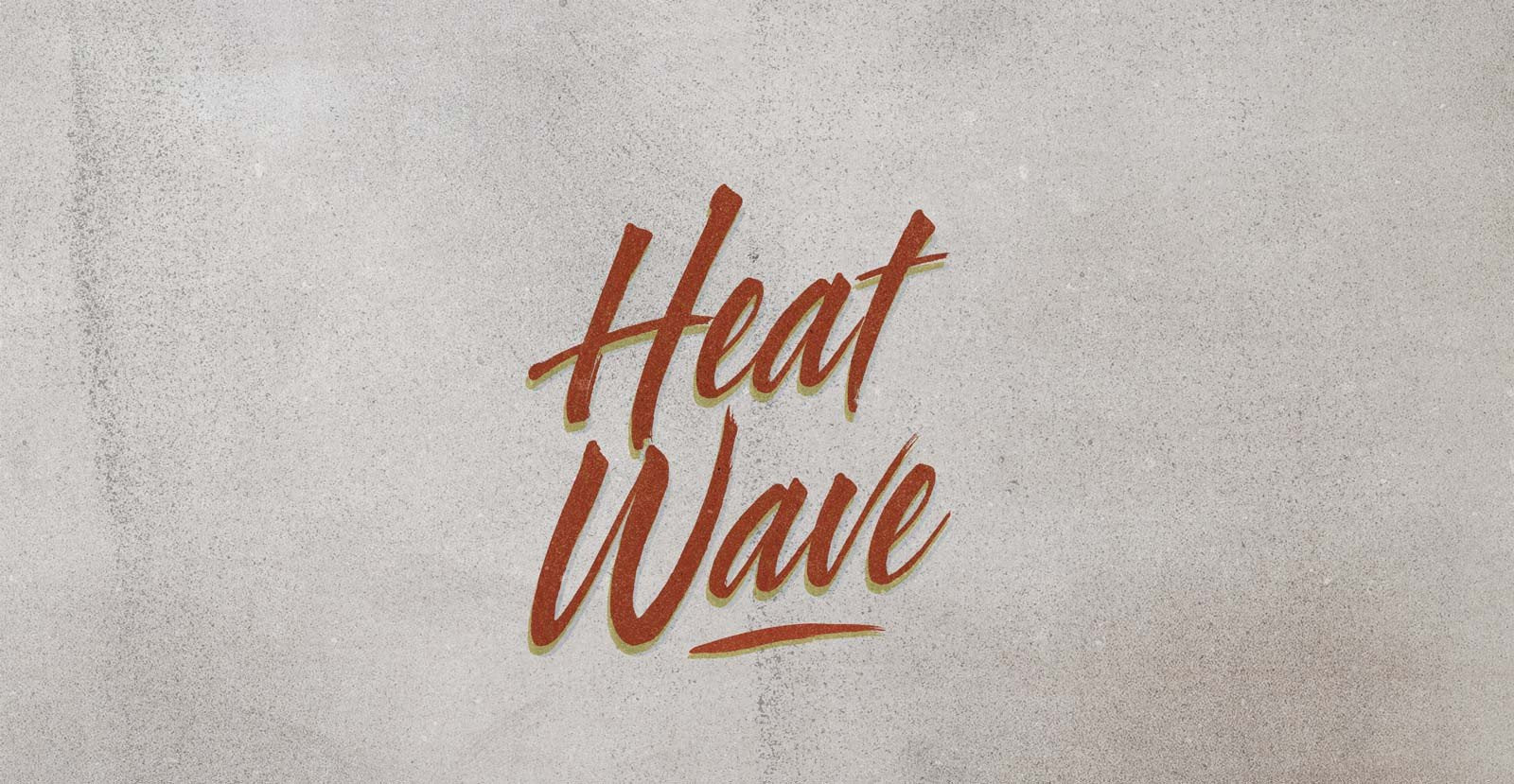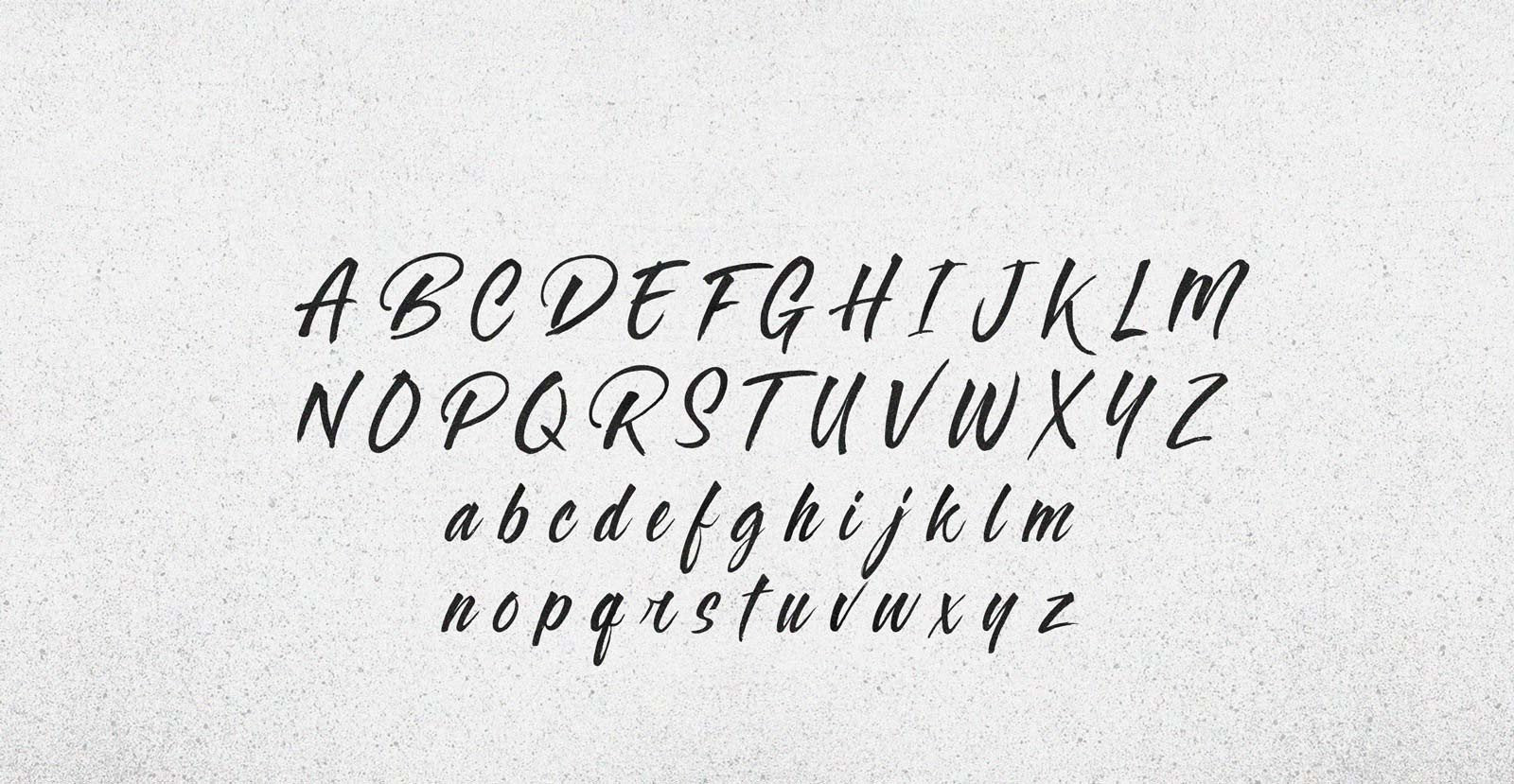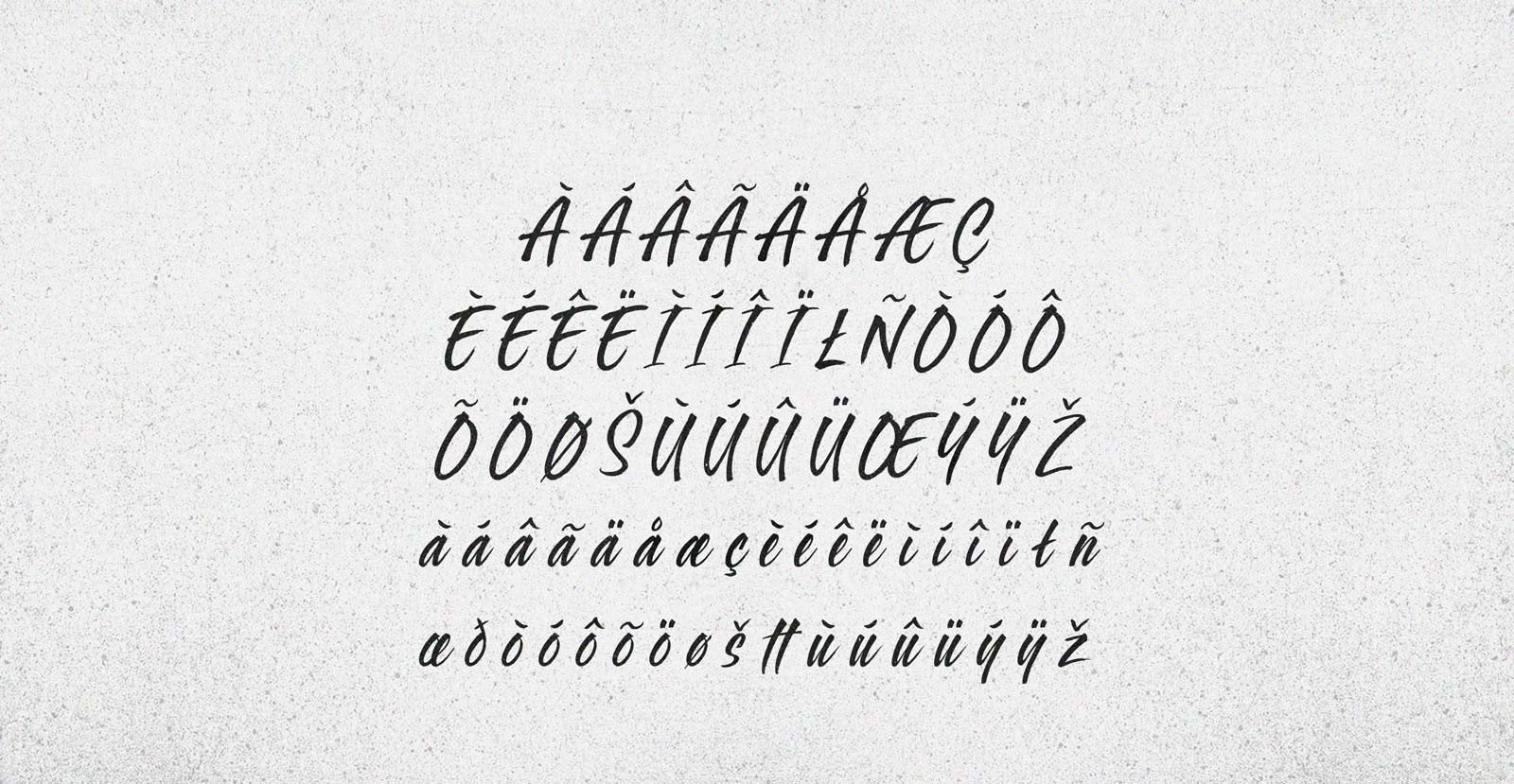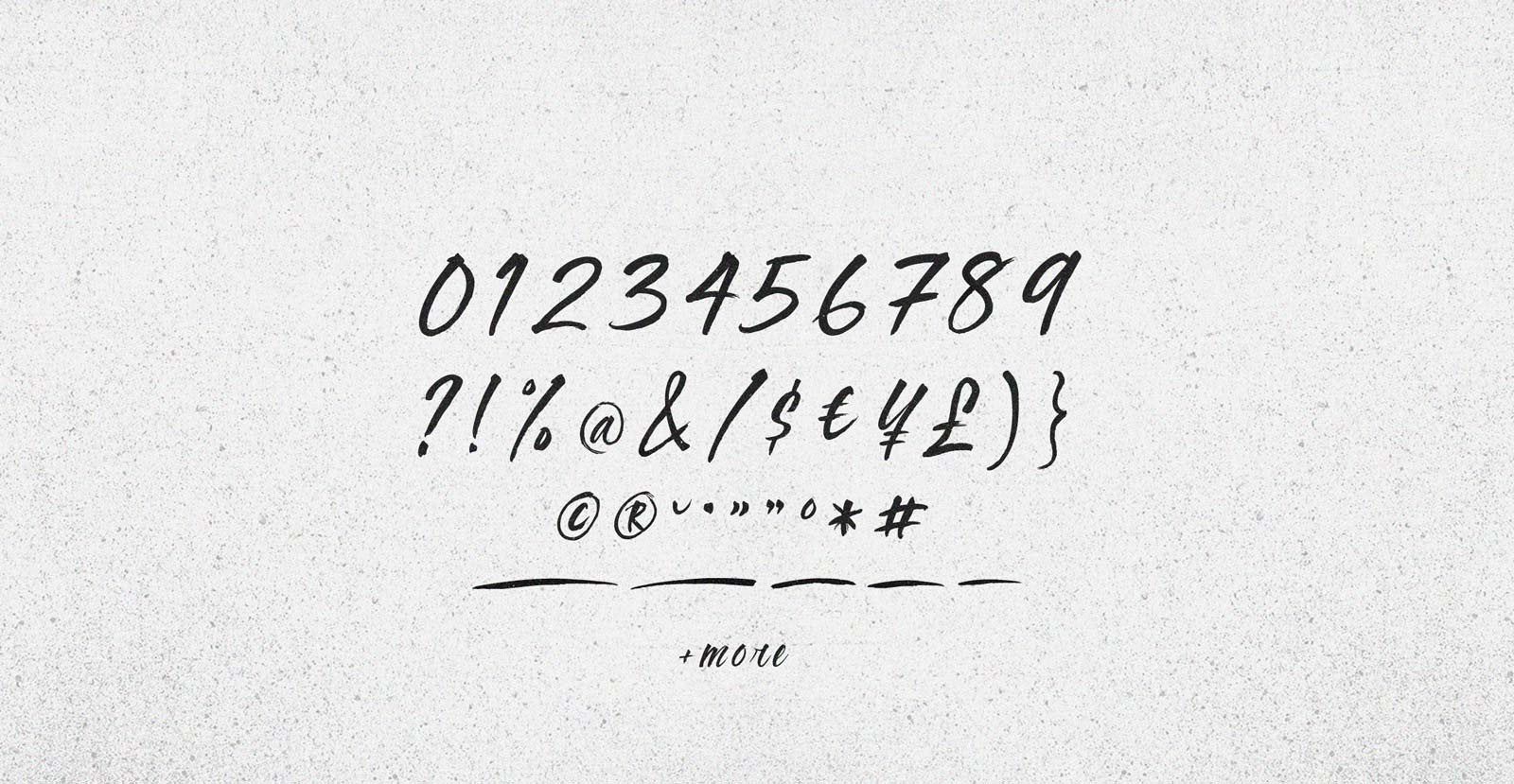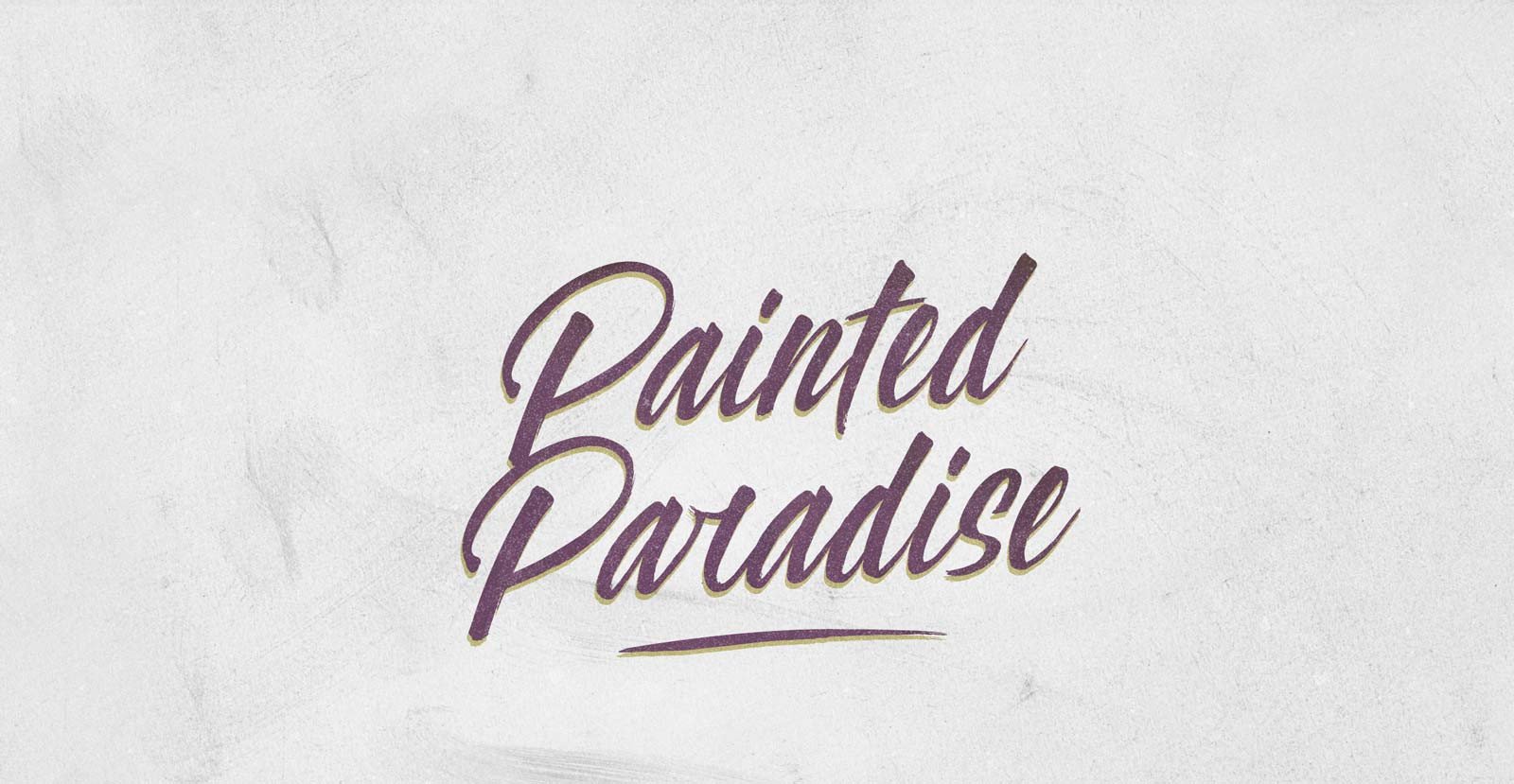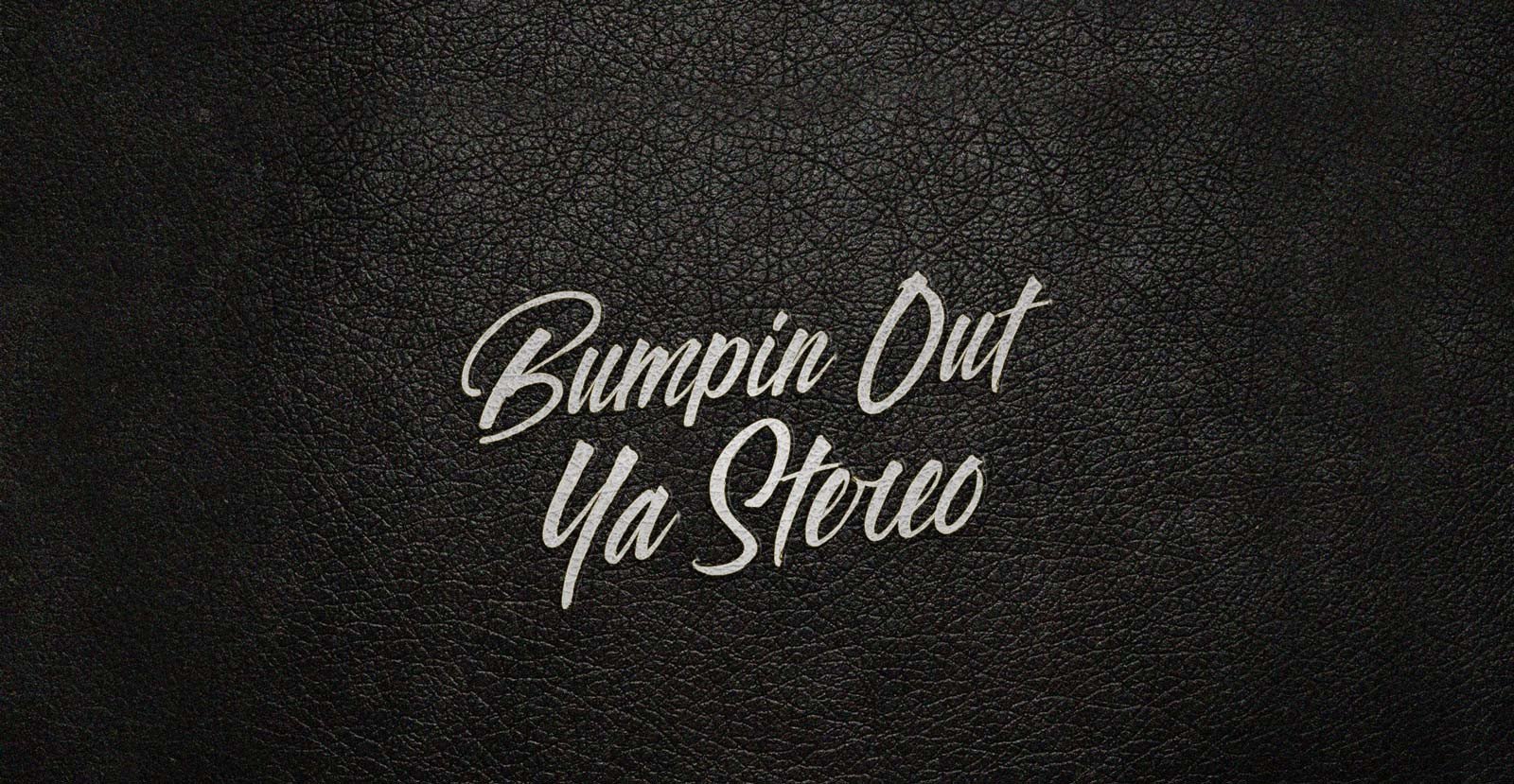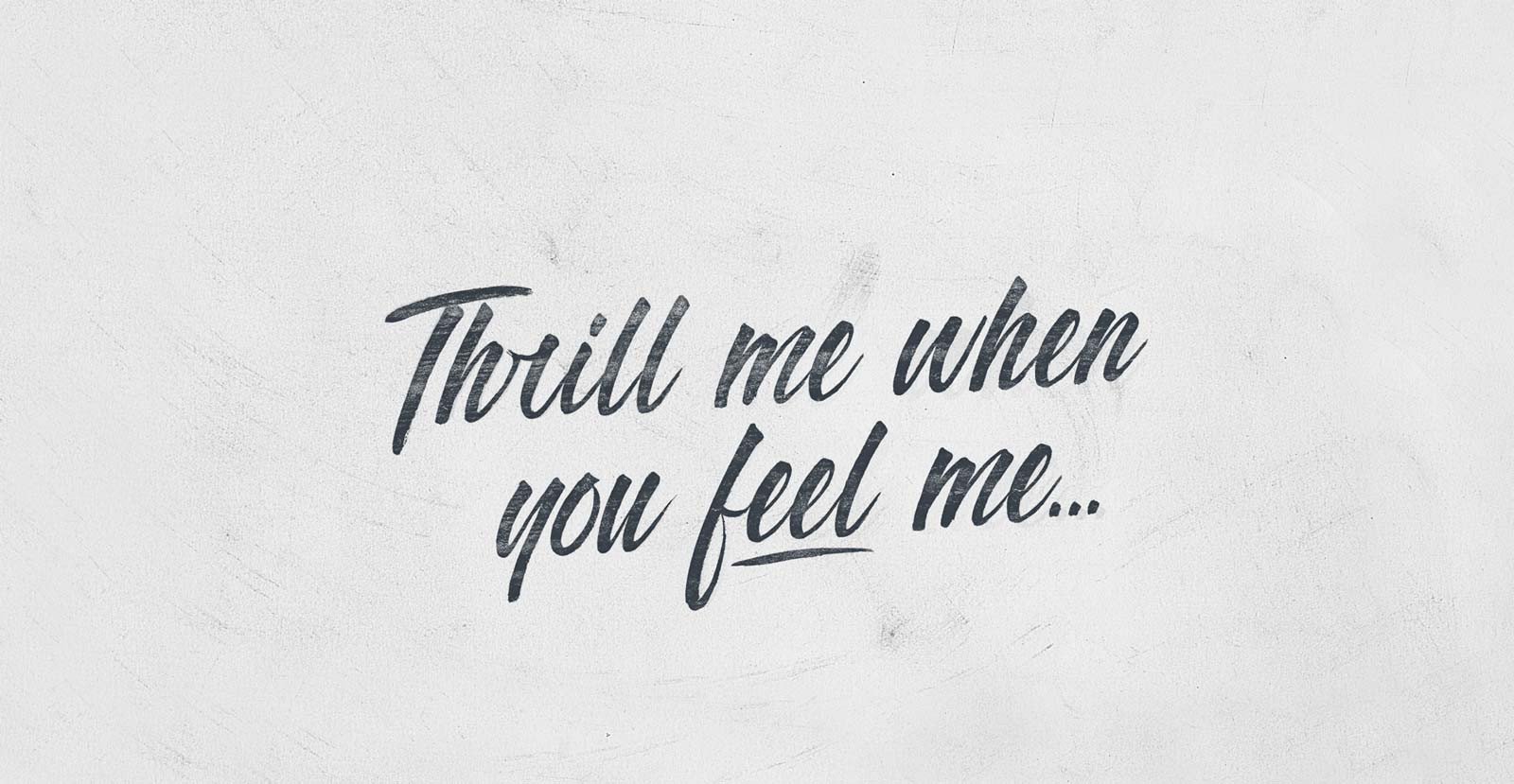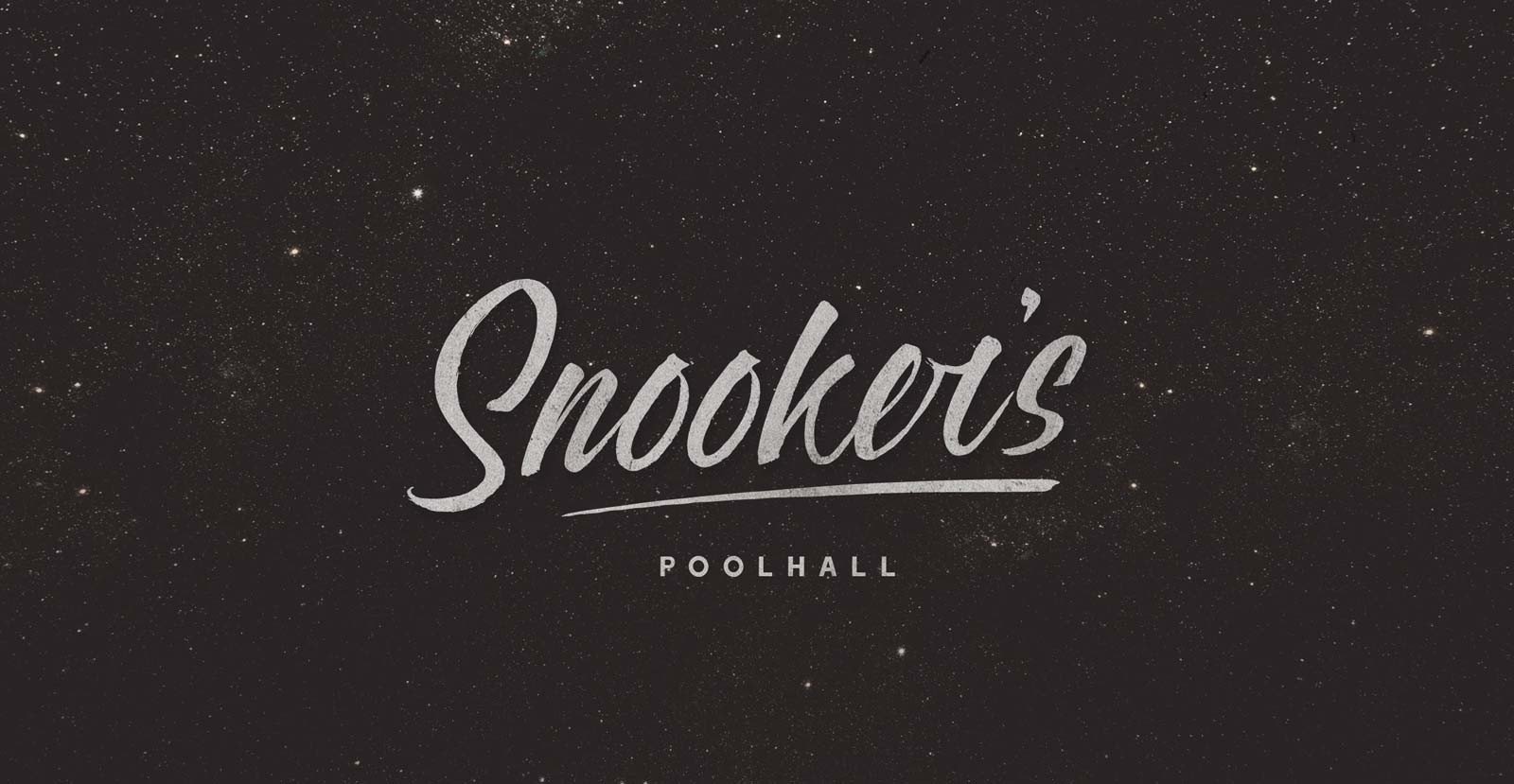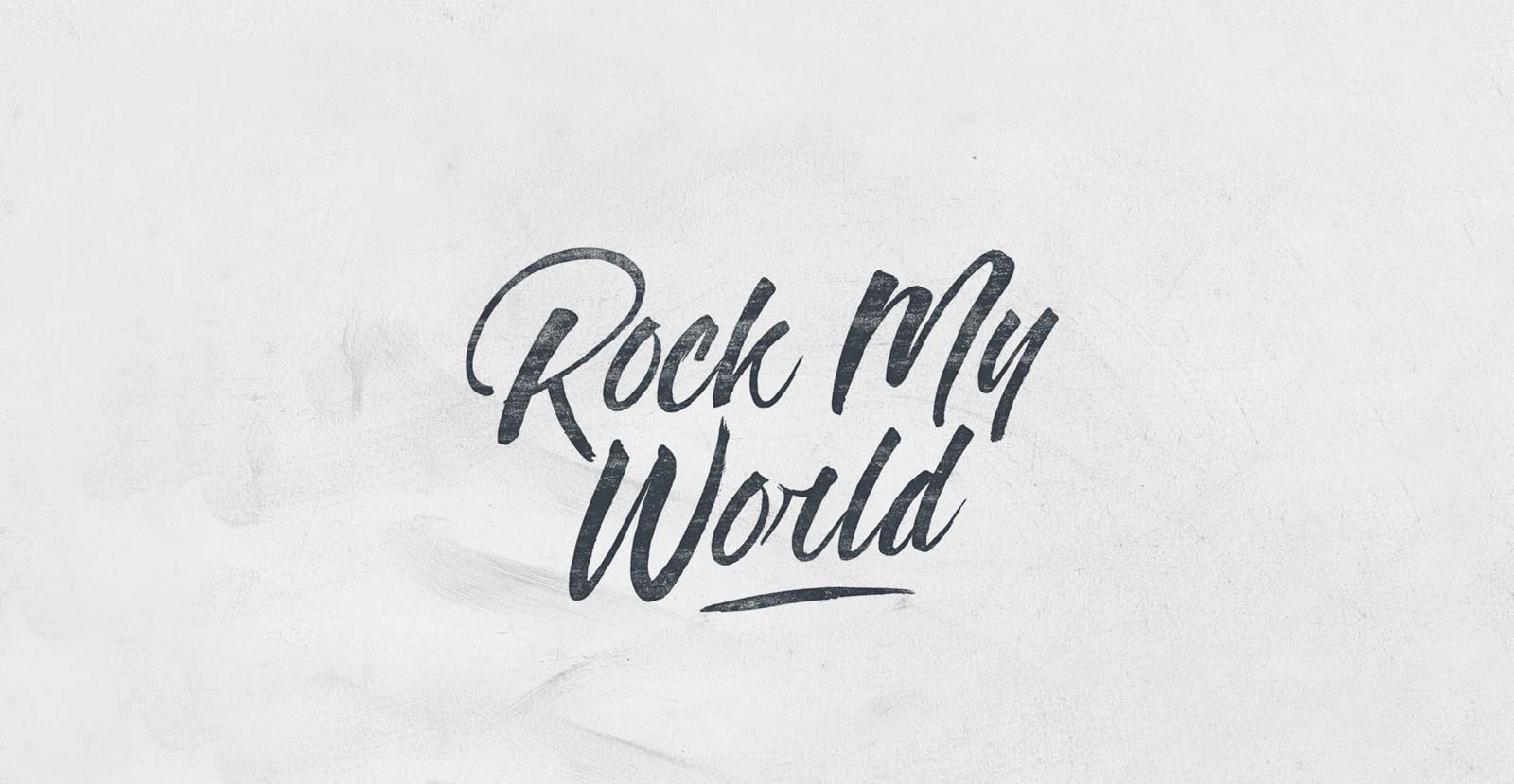
Heat Wave
Too hot in the streets and even hotter in the subway. Cooler by the water, but every fire hydrant is open, fanning the entire contents of the ocean onto the unforgiving pavement. Keds stick to asphalt as sticky as toffee, and kids pluck gobs of tar out of the streets and chew on it. And the soundtrack is hot. The sun has nothing on the Heat Wave bumping out of parks and car stereos.